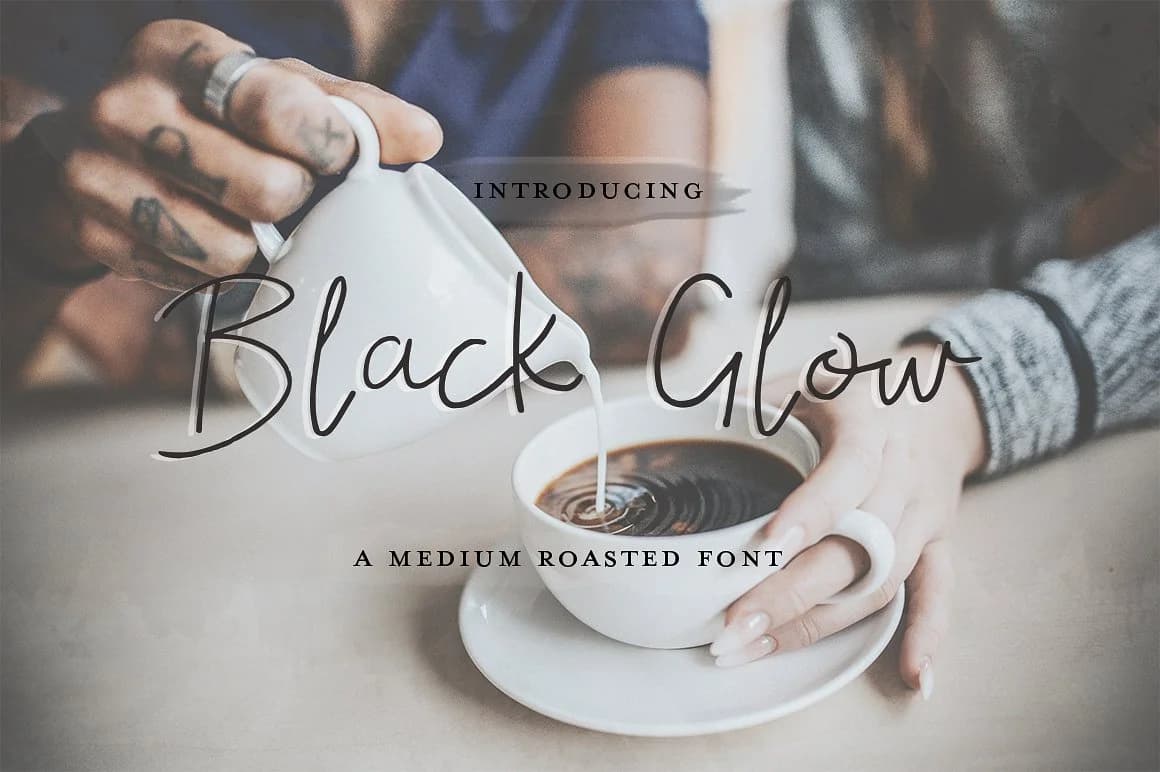
Black Glow Font by Salt and Pepper Fonts is a handwritten script that brings genuine warmth and character to creative projects. This distinctive typeface performs beautifully across cafΓ© menu boards, wedding invitation suites, artisanal product packaging, and greeting cards where a personal aesthetic becomes a meaningful design asset. The flowing letterforms capture authentic handwriting qualities with consistent readability, making the script particularly effective for custom gift labels, small-batch cosmetics branding, personalized event stationery, boutique retail signage, and other projects where individual character and craftsmanship are valued by your audience.
The font features a complete character set with strong presence, allowing designers to apply it confidently across both intimate stationery projects and larger display applications. Whether layered into social media graphics, incorporated into comprehensive brand guidelines, or featured as a focal point on custom packaging, Black Glow maintains excellent legibility while delivering visual personality throughout your design system. The script's natural rhythm proves equally effective for handcrafted business cards, personalized announcement materials, thank-you notes, and lifestyle brand collateral that aims to feel both polished and genuinely approachable.
Black Glow Font is a script font that shines as a display or heading face. Pair it with a clean sans-serif or serif font for body text β the contrast creates a clear hierarchy while the two styles stay balanced and easy to read.